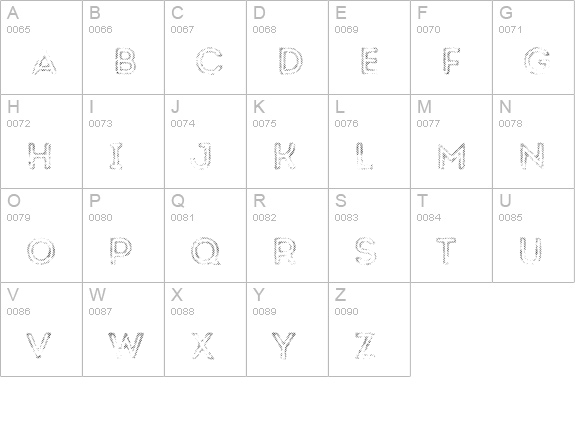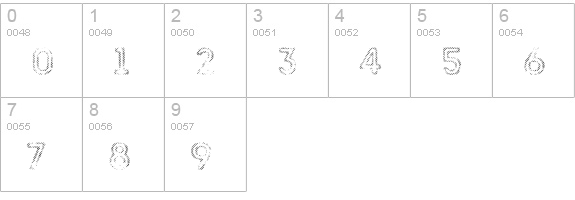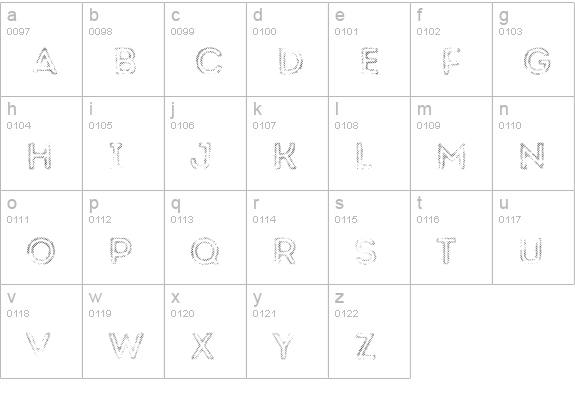
Intro Rust L Fill 2 is a bold and dynamic display font that exudes a sense of strength and modernity. Its unique design features rugged edges and a distressed texture, giving it a raw and edgy appearance. This font is perfect for making a bold statement in your designs, whether it's for posters, logos, or branding materials. The best part about Intro Rust L Fill 2 is that it is available for free download at FontsMarket.com. This means you can easily access this striking font and incorporate it into your projects without any financial barriers. Embrace the power and versatility of Intro Rust L Fill 2 as you create visually impactful and memorable designs that stand out from the crowd.